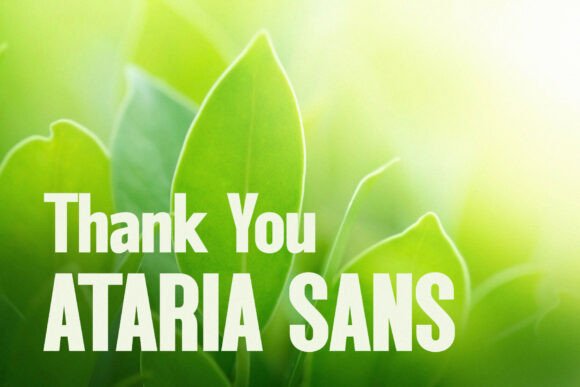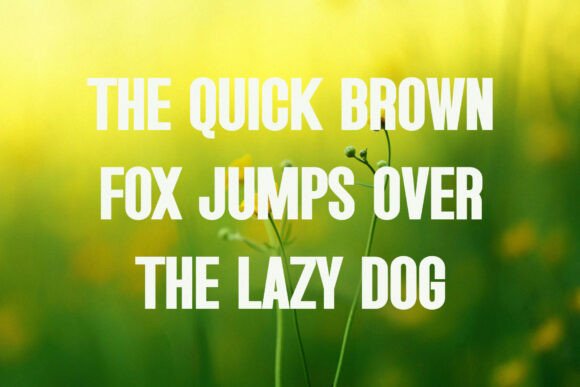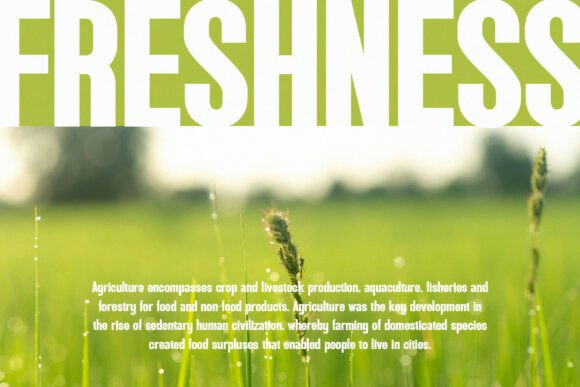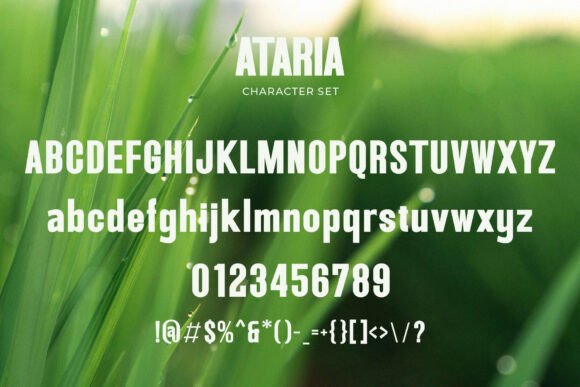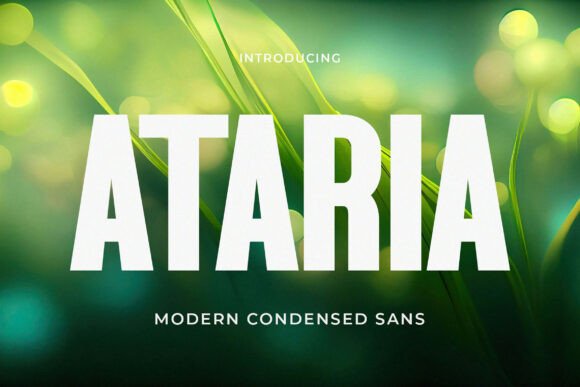
Ataria Font: A Game-Changer for Designers
Ataria is a versatile font designed for high visual impact with minimal space. Its clean lines, tight spacing, and bold, elegant profile make it perfect for magazine layouts, branding, advertising, posters, and tech-inspired designs. Whether you’re a designer, crafter, or creative hobbyist, Ataria is an excellent choice for adding a touch of sophistication to your projects.
What I Love About Ataria ✨
- ✅ Clean and modern design: Ataria’s sleek lines and minimalistic approach make it perfect for contemporary designs.
- ✅ Tight spacing: The font’s condensed style allows for efficient use of space, making it ideal for layouts with limited room.
- ✅ Elegant and professional: Ataria’s bold profile adds a touch of sophistication to any design, making it suitable for high-end branding and advertising.
- ✅ Versatile: The font works well in various design contexts, from digital platforms to print materials.
- ⚠️ Limited use in body text: Due to its condensed style, Ataria might not be the best choice for lengthy body text, as it can become difficult to read.
- ⚠️ Requires careful kerning: As with any font, some users may need to adjust kerning to ensure optimal spacing and readability.
The Designer Behind Ataria: A Backstory
Ataria was designed by a team of typographers who aimed to create a modern, elegant, and versatile font for designers and creatives. Inspired by the sleek lines and minimalistic approach of contemporary design, Ataria was crafted to provide a high visual impact with minimal space. The designer’s goal was to create a font that would balance professionalism with a contemporary vibe, making it suitable for a wide range of design projects.
Q: What is Ataria Font best used for?
A: Ataria Font is best used for designs that require a modern, elegant, and attention-grabbing approach, such as magazine layouts, branding, advertising, posters, and tech-inspired designs.
Q: Is Ataria suitable for body text?
A: Due to its condensed style, Ataria might not be the best choice for lengthy body text, as it can become difficult to read. However, it can be used for short paragraphs or headings.